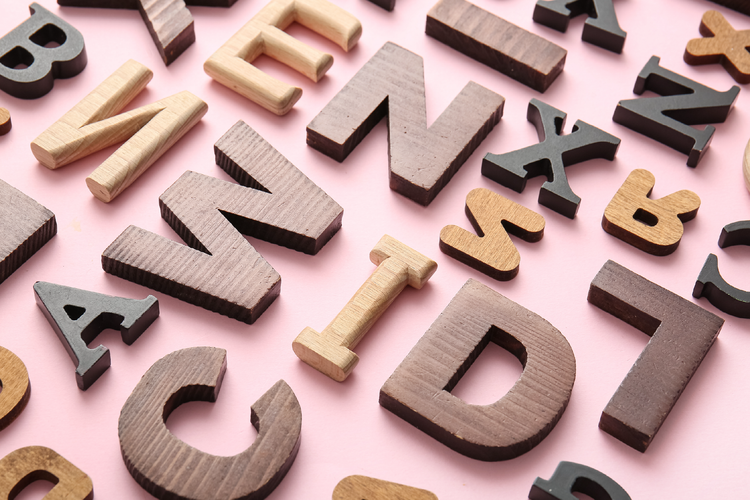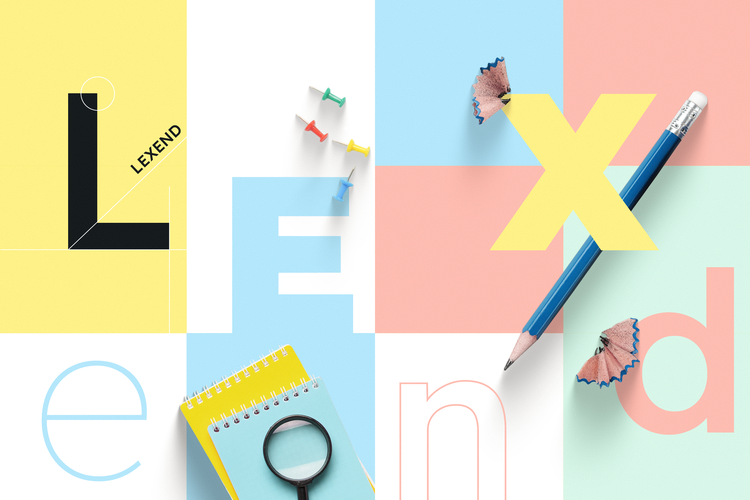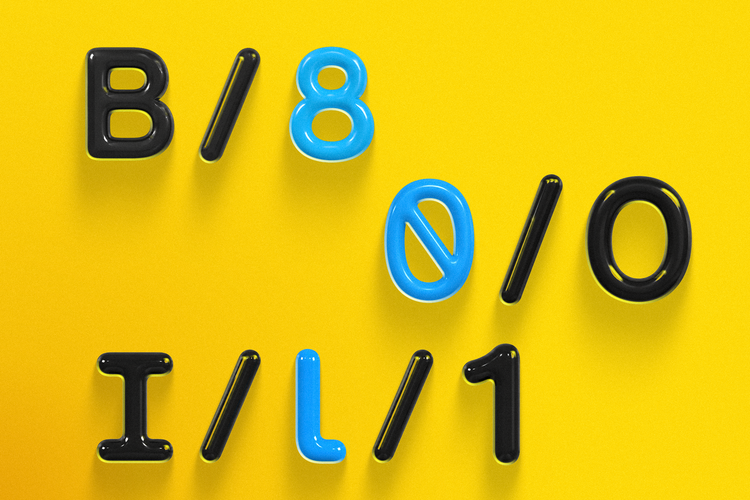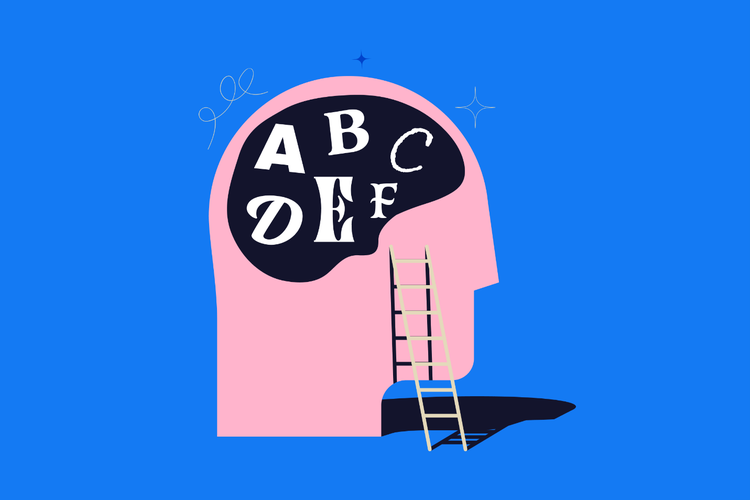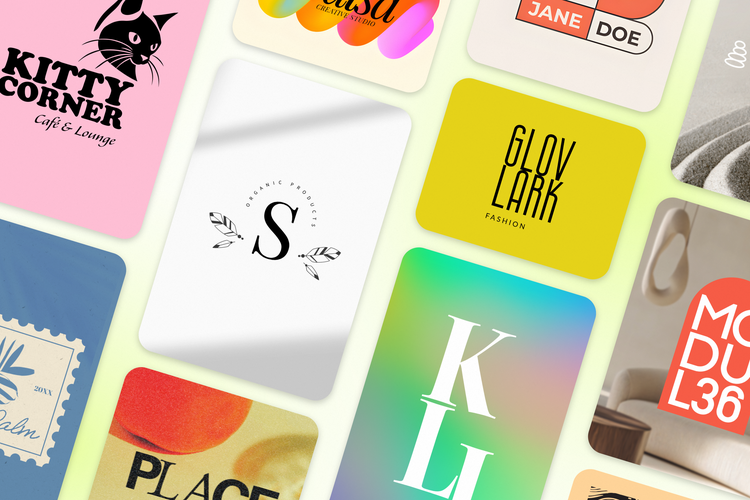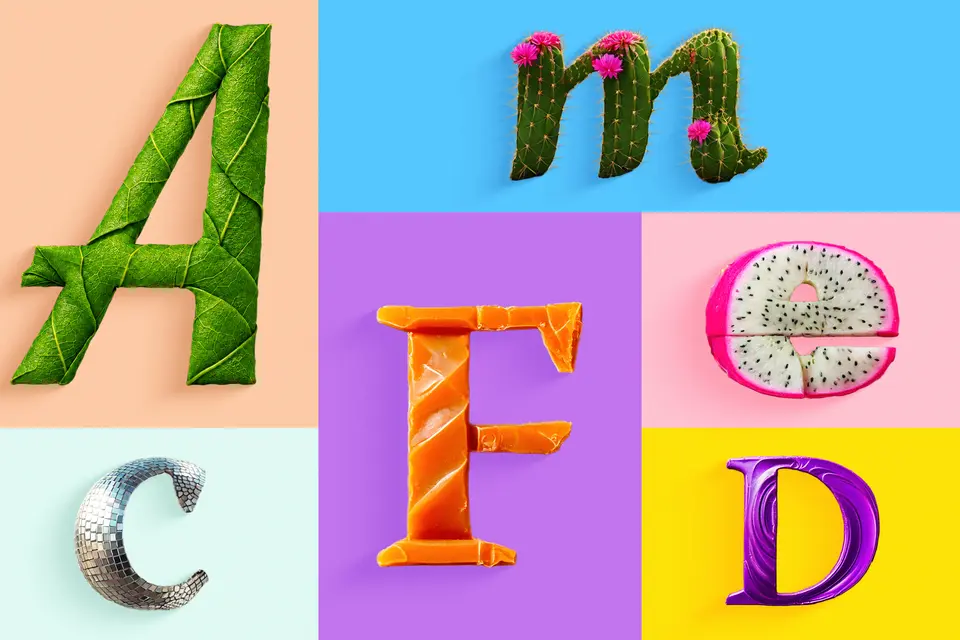
Understanding the psychology of font and using text in design
How to choose a font that fits your purpose best
In design, every element of your work holds the power to elicit a particular emotional reaction or response. As a result, if you align these elements around one specific intention, you can increase the power that your design holds.
Elements such as the use of color, shape, or choice of font, can each have a huge effect on how your design is perceived overall — whether it’s noticed in a way that is conscious or unconscious.
Font psychology is the study of how different fonts and typographic styles affect the thoughts, feelings, and behaviors of those viewing the design in the subconscious mind. When designing, different fonts will stir up different emotions and associations so it's important to pick a font that matches the tone of your purpose. For example, a brand that wants to be seen as serious and professional should choose to use fonts that align with this tone. On the flip side, if you’re crafting a poster for a children’s event, a font that appears approachable and friendly would be a more appropriate choice.
Why is font psychology important?
Font psychology is something you should always be considering when designing anything containing text. When your choice of font conveys the right message and elicits the correct emotional response, your design and branding will be significantly more effective in persuading your audience to take the action you desire. When done right, font psychology can be used to cultivate a more powerful brand identity when your choice of font aligns with who you are as a business. When done wrong, your chosen font may feel inappropriate and uncomfortable for its purpose and for your brand.
What is the difference between font and typeface?
Often conflated, it’s important to understand the difference between font and typeface and the impact each of these can have on your design. Typeface refers to the overall set of font styles in your design or branding while font refers to individual styles of glyphs or characters within the typeface.
In essence, while each font in the typeface will all be reasonably similar – they will each have their own unique differences that set them apart from one another. For example, an example of a typeface is Gotham, and an example of a font within this typeface could be Gotham Italic Bold.
The typeface that you make use of in your designs carries the largest impact on how your design is perceived by your audience – but the use of individual fonts within this typeface is also important on a more detail-oriented level.
While font is an important consideration, it doesn’t end there when it comes to using text in your designs. How you layout the text on the page, and the visual hierarchy of your text can also impact how your design is received. Take care when it comes to optimizing line spacing, spacing between letters, margin sizes, and alignment. Text that is too close together and difficult to read will trigger a negative reaction while text that has an appropriate amount of white space and a comfortable amount of spacing between paragraphs and titles will feel more visually pleasant and comfortable to look at. Letter sizing is also a great way to bring focus to the most important elements of your design with larger elements more likely to steal focus.
The weighting of your font is also important when it comes to crafting your design. Some types of font weights are more appropriate for different types of text such as headings or body text and can impede the readability and effectiveness of your design when used incorrectly.
Light font weight: Fonts of this weight are best for paragraph text but should be paired with fonts in a bold weight for headings. Due to its thinner look, this type of font is often associated with feelings of gentleness and softness.
Medium font weight: Medium-weighted fonts are perfect for paragraph and long-form body text, particularly due to their readability. This type of font will appear crisp and clean in your designs.
Bold font weight: Bold-weighted fonts are perfect for headings and titles as they naturally grab attention. Bold-weighted fonts are usually used to highlight the most important text elements of your design and can be great for logo design. Bold fonts are often associated with power and strength.
How to use different fonts to elicit the correct emotional response
Serif fonts
Serif fonts have historically been used in academic contexts and formal institutions, commonly utilized in books and any manner of physical media. As a result, serif fonts are often associated with tradition, respect, trust, authority, reliability, and sophistication.
Serif’s classic appearance makes it a good fit for branding in industries such as law, finance, or insurance.
Examples of serif fonts: Times New Roman, Garamond, Georgia, and Palantino
Slab-serif fonts
Belonging to the same serif family, the slab-serif font is more squared off, giving it a chunkier look. Slab-serif comes with many of the emotions associated with the original serif font, but can appear bolder, more youthful, and confident.
Examples of slab-serif fonts: Courier, Rockwell, and Museo
Sans-serif fonts
Sans-serif fonts lack the “serifs” that these other font styles have, thus giving them a modern, crisp feel. As a result, sans-serif fonts are often associated with straightforwardness, cleanliness, and clarity. Because the letters require less space, they are also great for using in modern device display.